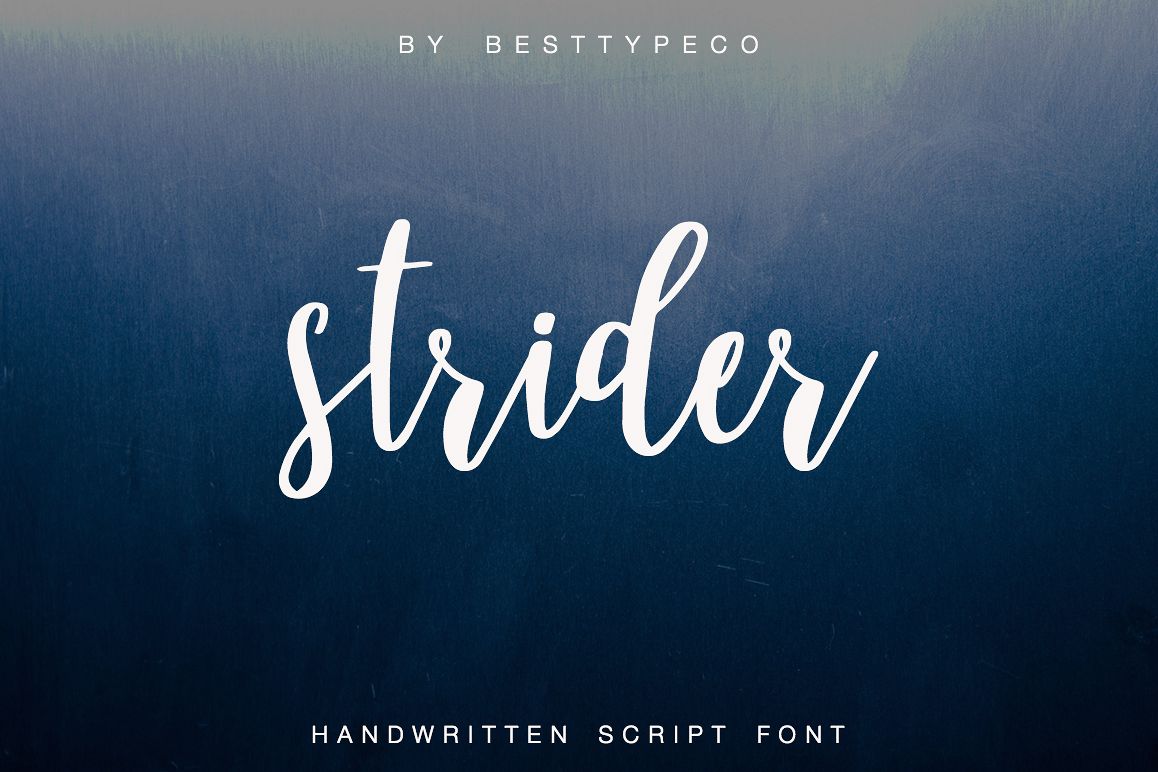
Introducing Strider my new handwritten font
Strider - a new fresh handmade calligraphy font. Very suitable for greeting cards, branding materials, business cards, quotes, posters, and more!This font are perfect for wedding postcard. Or you can create perfect and unique design of your logo, blog, stationery, marketing, magazines and more :)